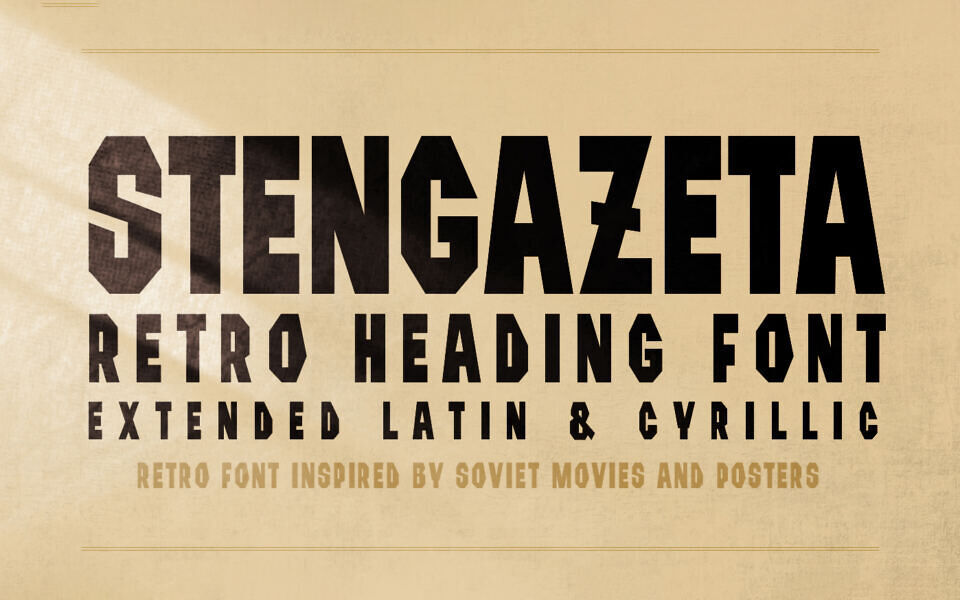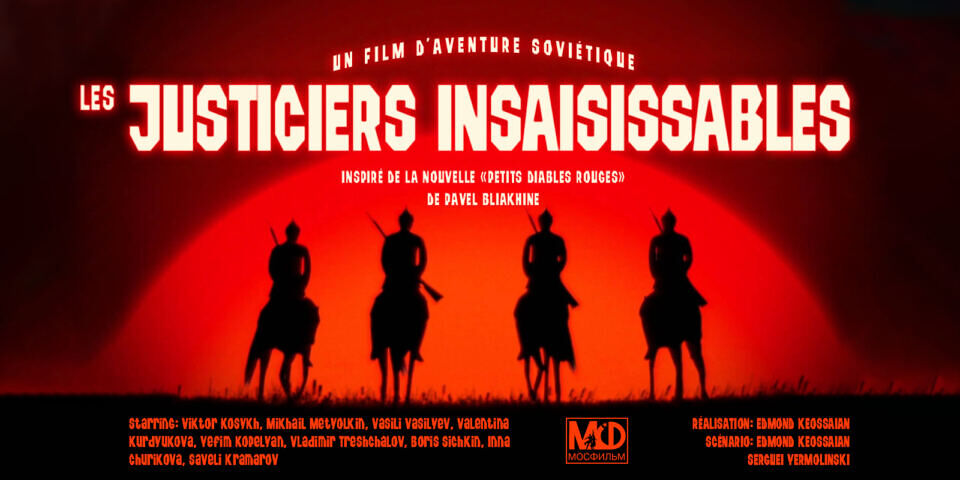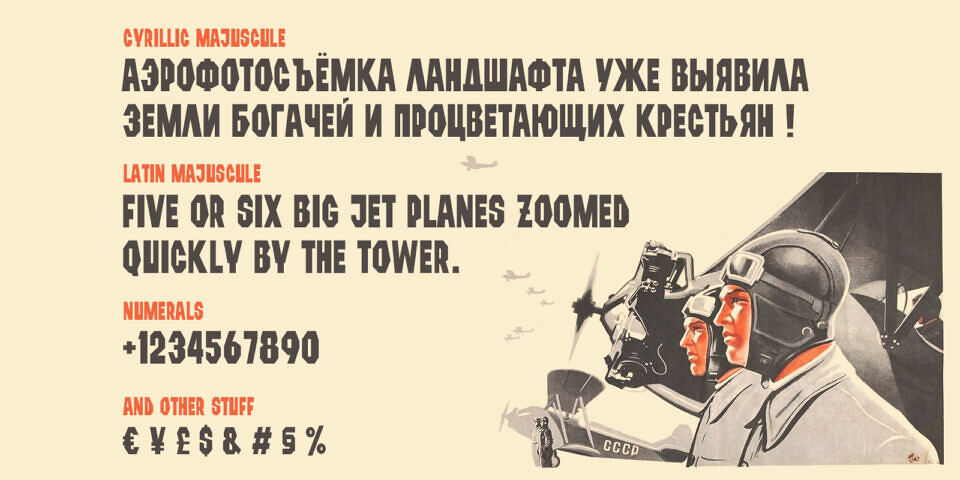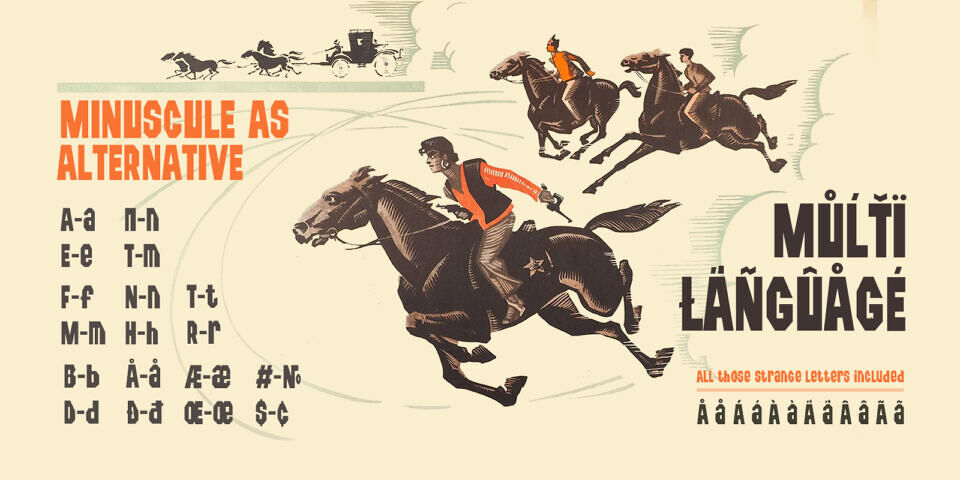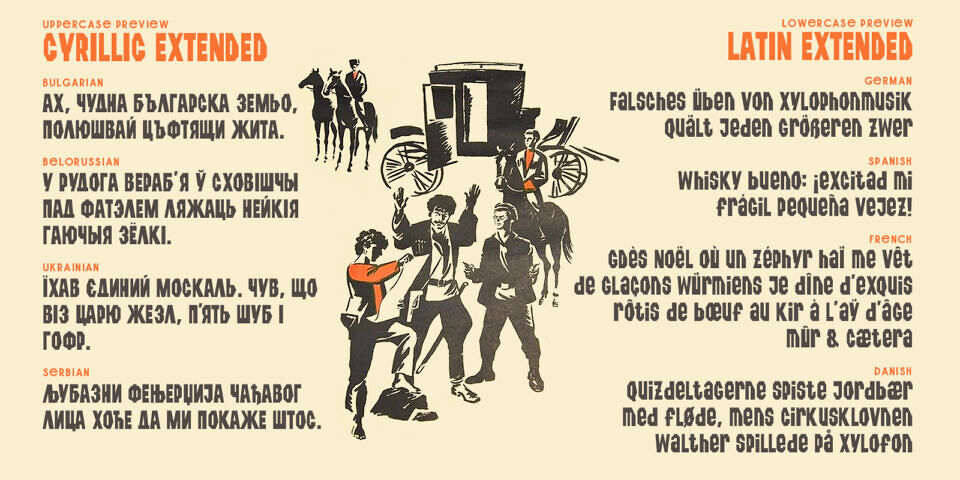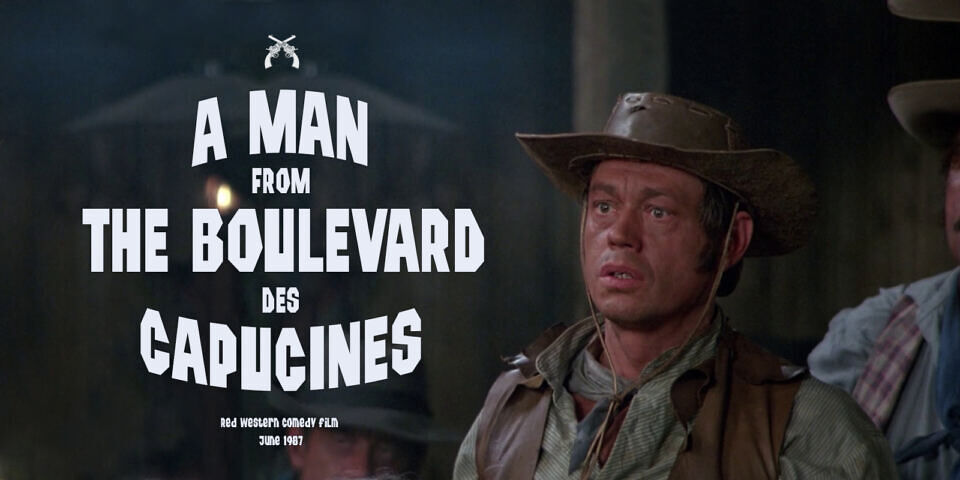
ST-Stengazeta Font
Meet “Stengazeta,” a retro-inspired font. Its name is derived from Soviet-era “wall newspapers,” a unique blend of handwritten art, newspapers, and posters. These creations were ubiquitous, found in factories, schools, labs, and even military and police establishments. While sometimes used for official propaganda, they also allowed colleagues to showcase their creativity and self-expression.
The font features a massive grotesque face with a distinctly hand-crafted effect. It supports the extended Cyrillic alphabet for Eastern European languages, as well as the extended Latin alphabet. “Stengazeta” is ideal for headlines, poster design, web design, branding and packaging, illustrations, icons, and other typographic works.
Stengazeta supports the following languages: Belarusian, Bosnian, Bulgarian, Croatian, Czech, Danish, English, Russian, Serbian, Slovenian, Spanish, Ukrainian, and possibly others.
• WHAT’S INCLUDED: Capital letters, numbers, punctuation marks, international symbols